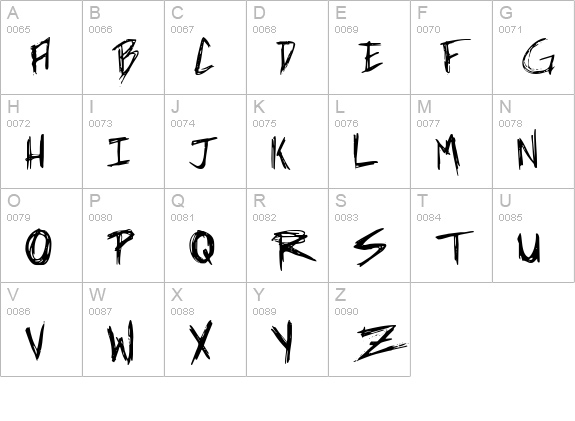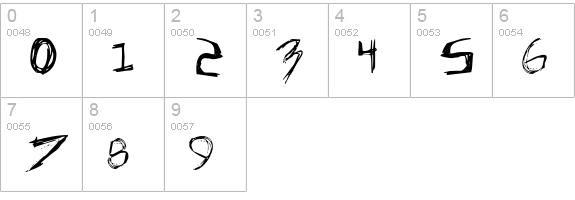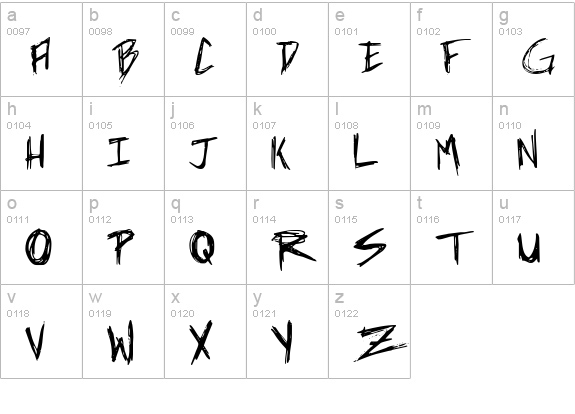
Incubus Font Details
The Incubus font is a captivating and versatile typeface that exudes a mysterious and alluring charm. Its elegant and intricate design makes it perfect for adding a touch of sophistication to any project. The Incubus font is free to download at FontsMarket.com, allowing you to easily incorporate its unique style into your designs without any cost. With its bold and distinctive look, the Incubus font is sure to make a striking impression and elevate your creations to the next level. Whether you're working on a logo, website, or any other design project, the Incubus font is a fantastic choice that will bring a touch of magic to your work.